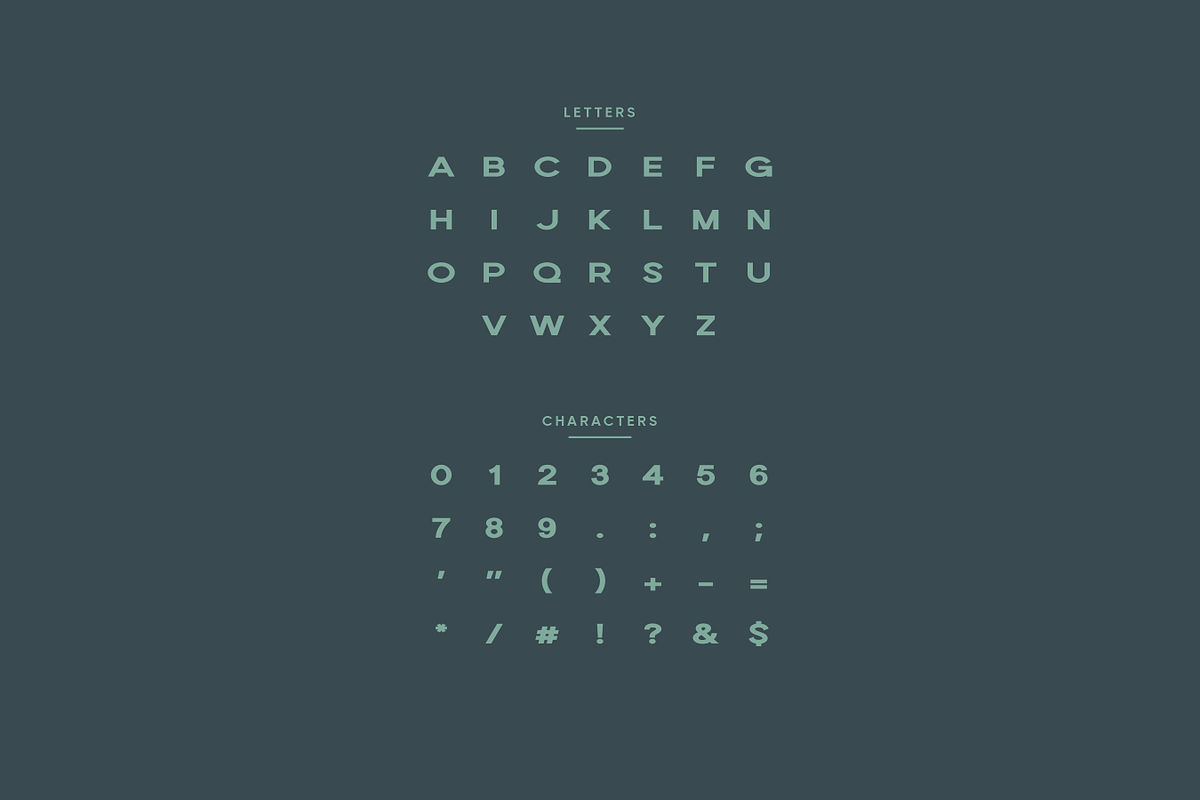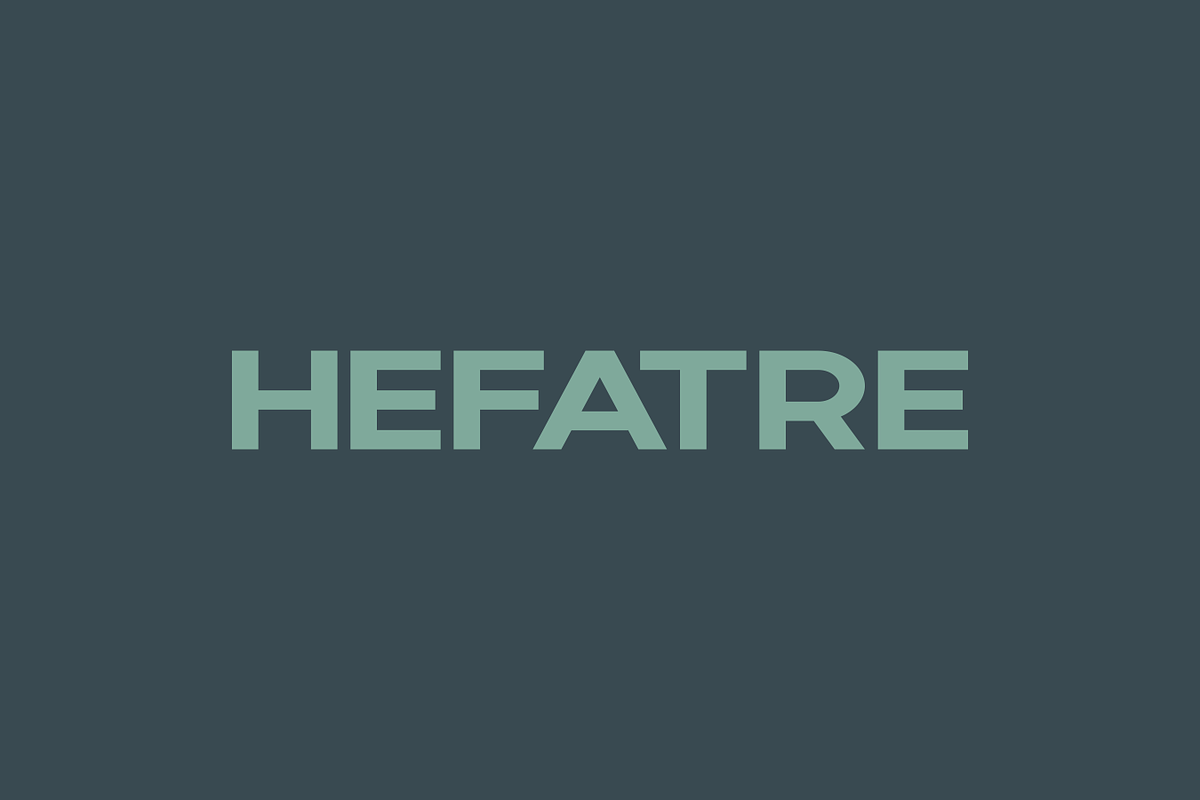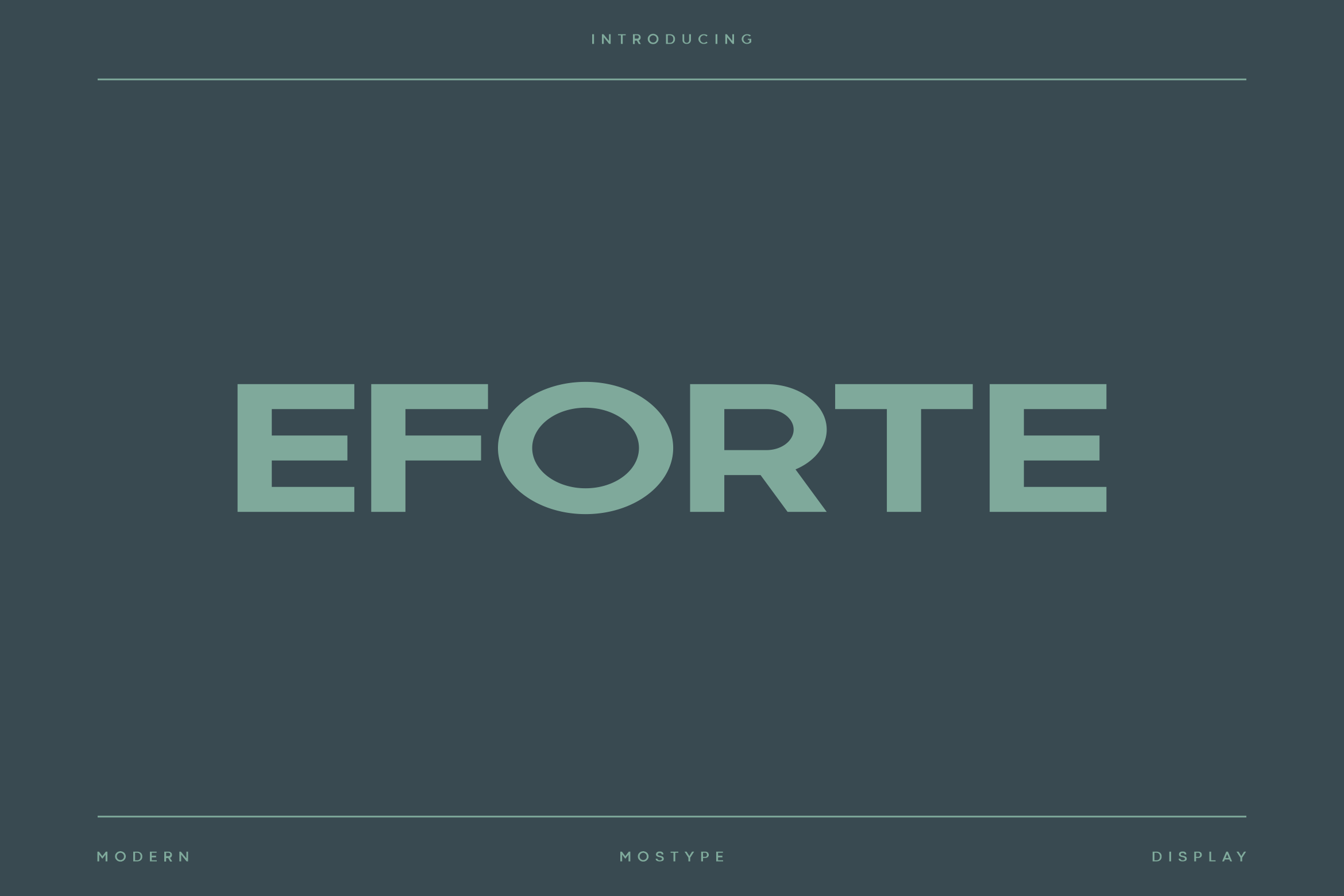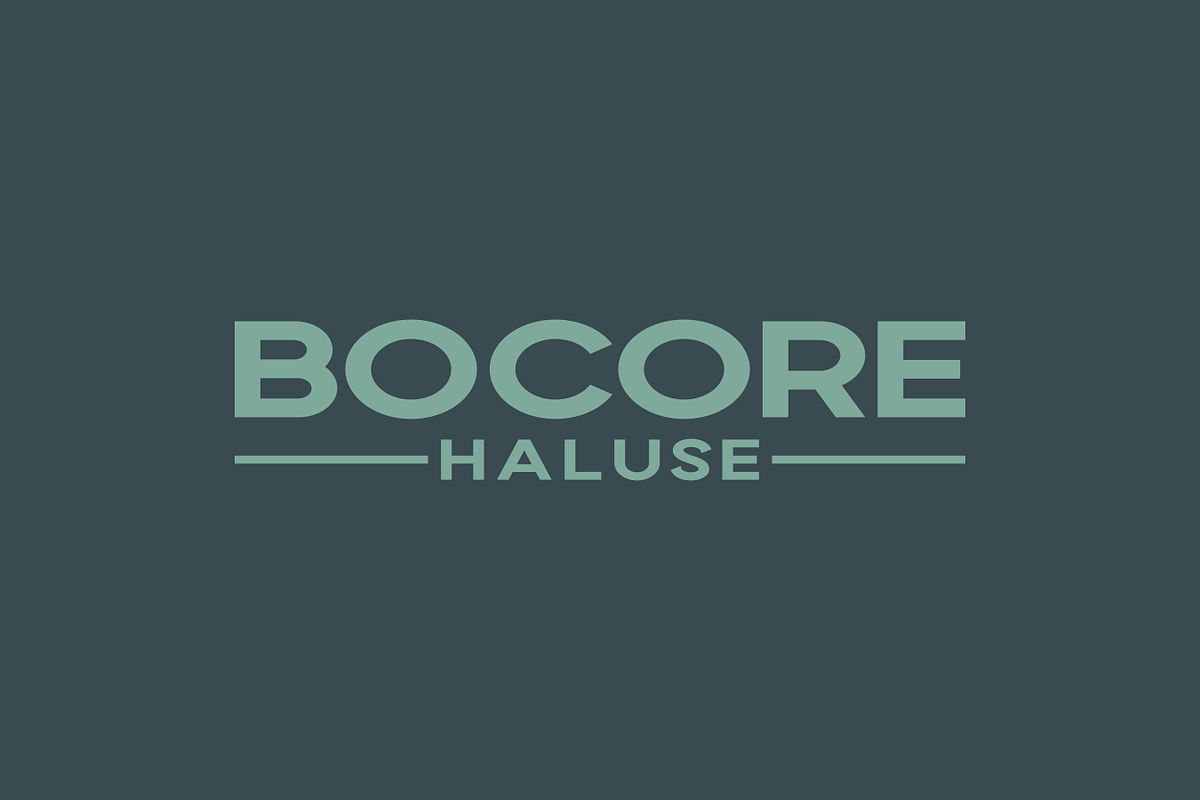
Eforte - Modern Display Typeface
Eforte is a display new generation typeface. This font was created with all the tasks of a corporate font and also for the use in a variety of project, including branding product, logo, title, headline, poster, screen, display, digital ads, and everything else. We are putting a lot of effort on this font as a long-term project.